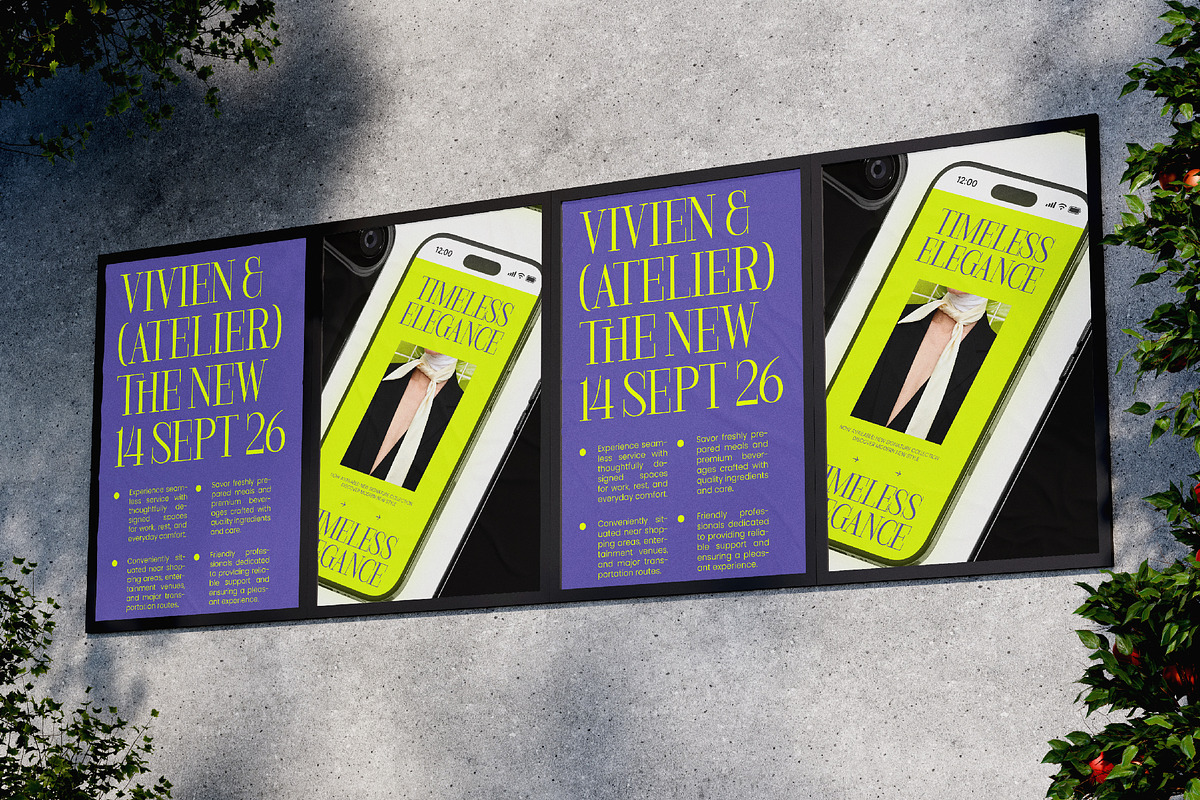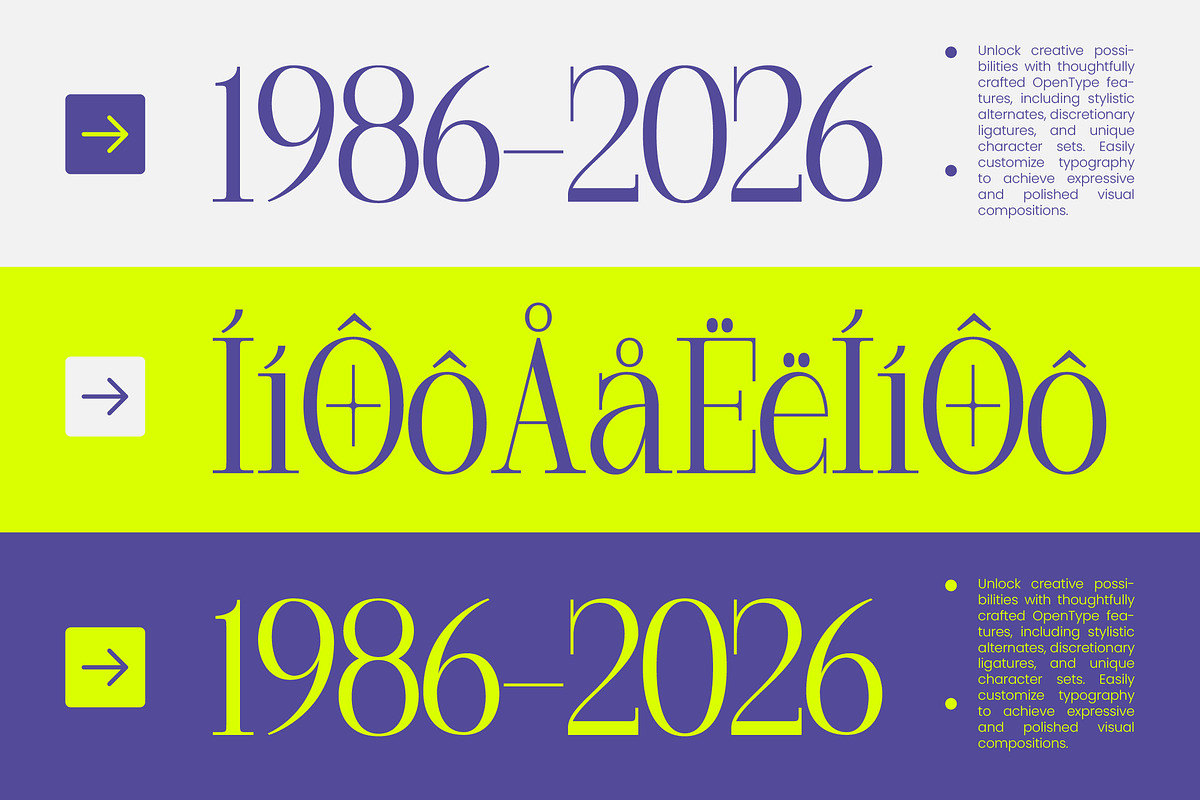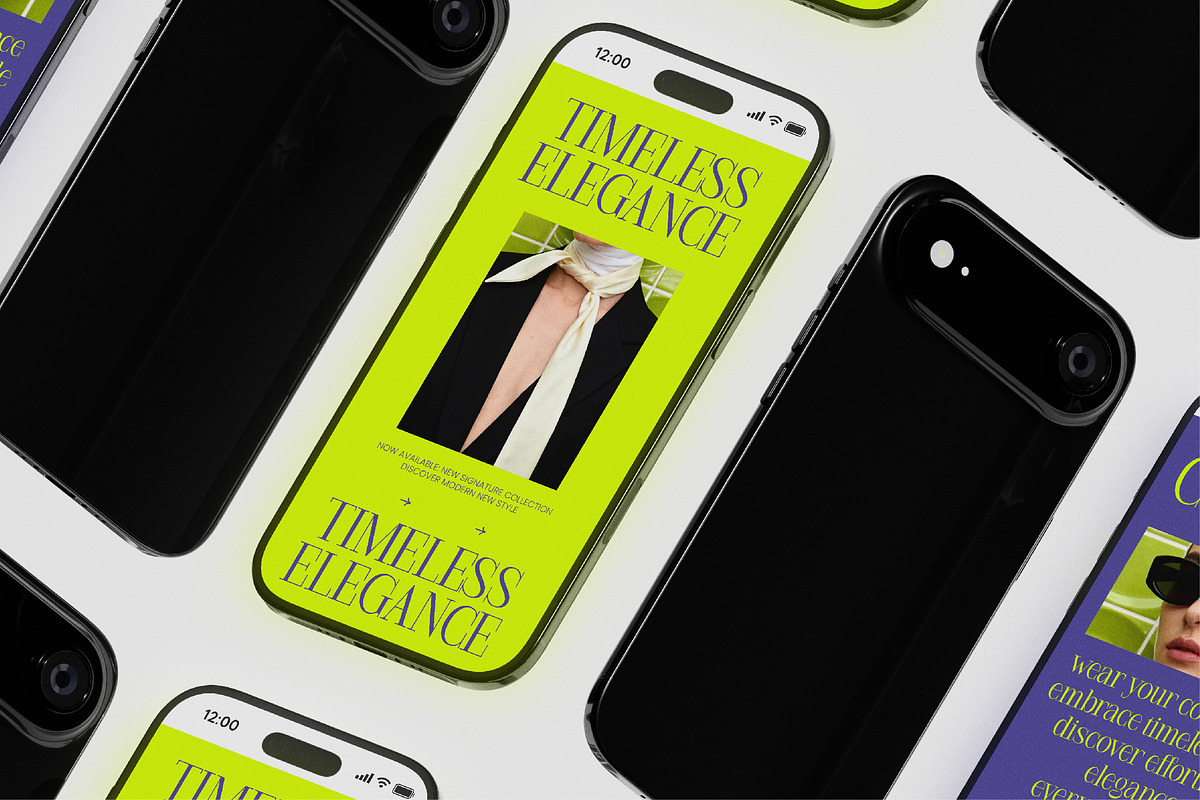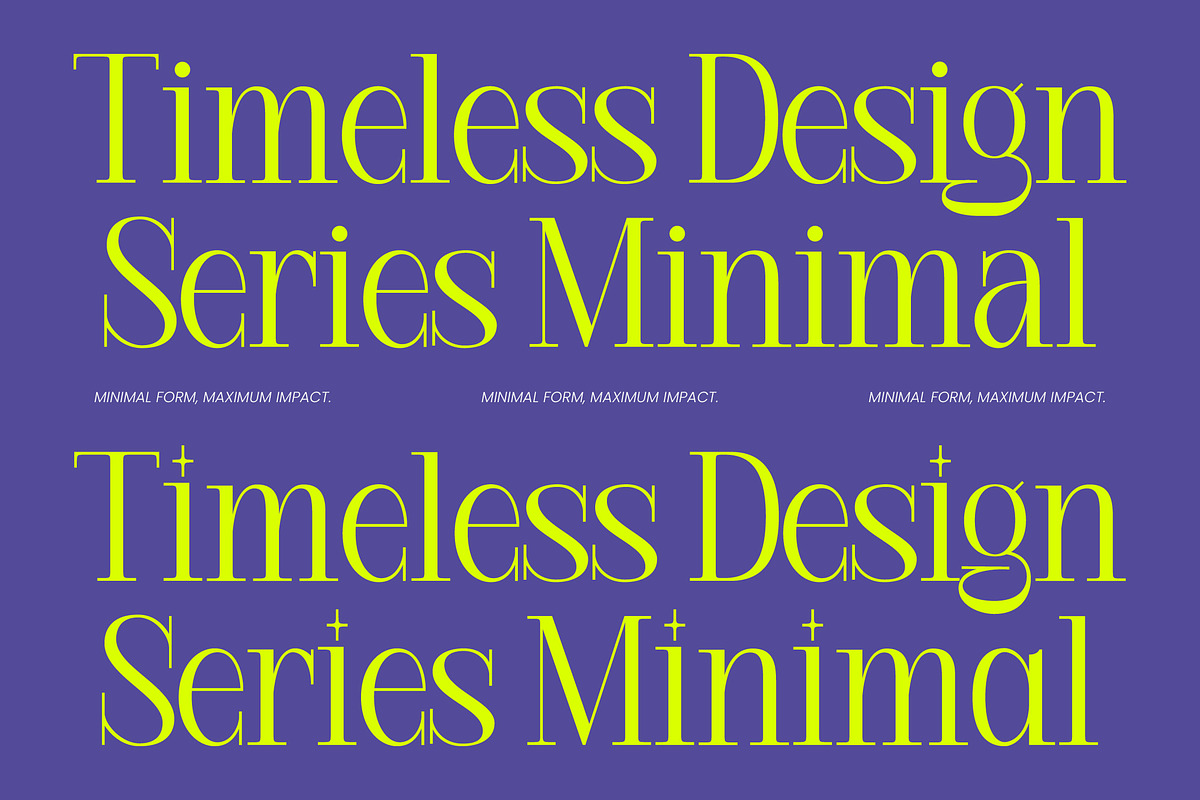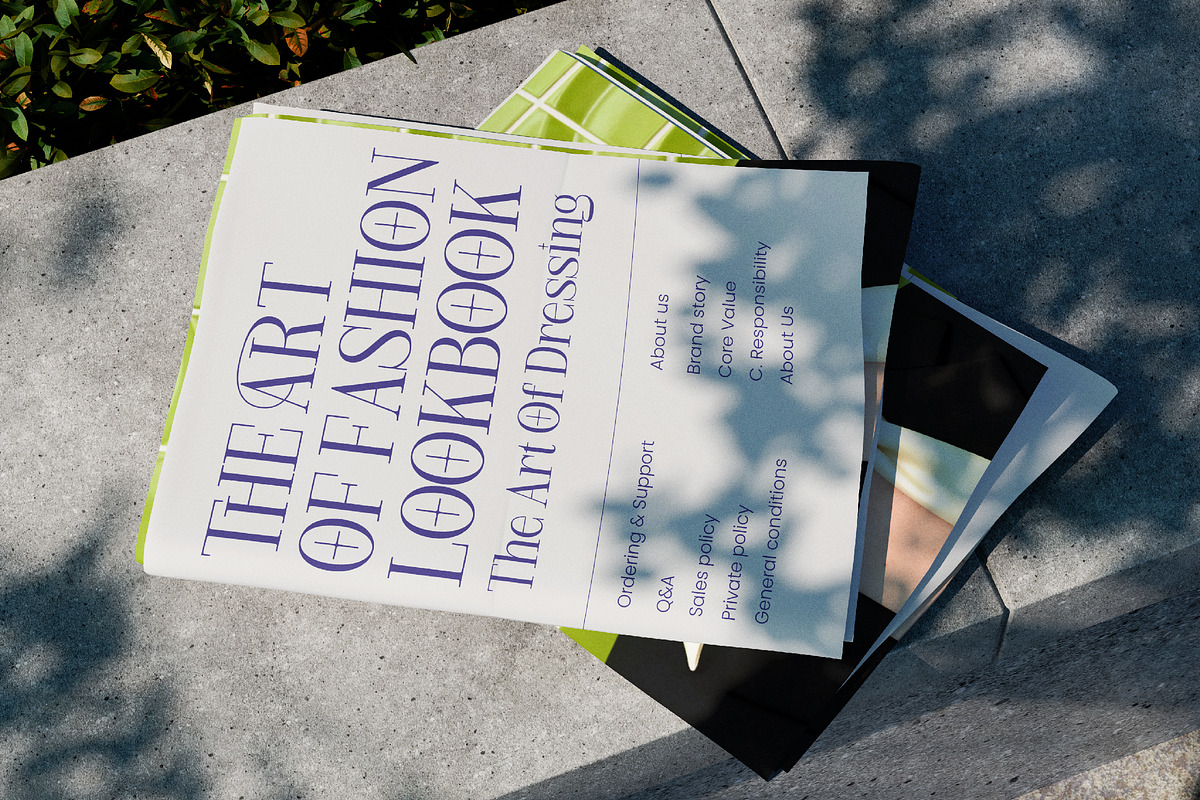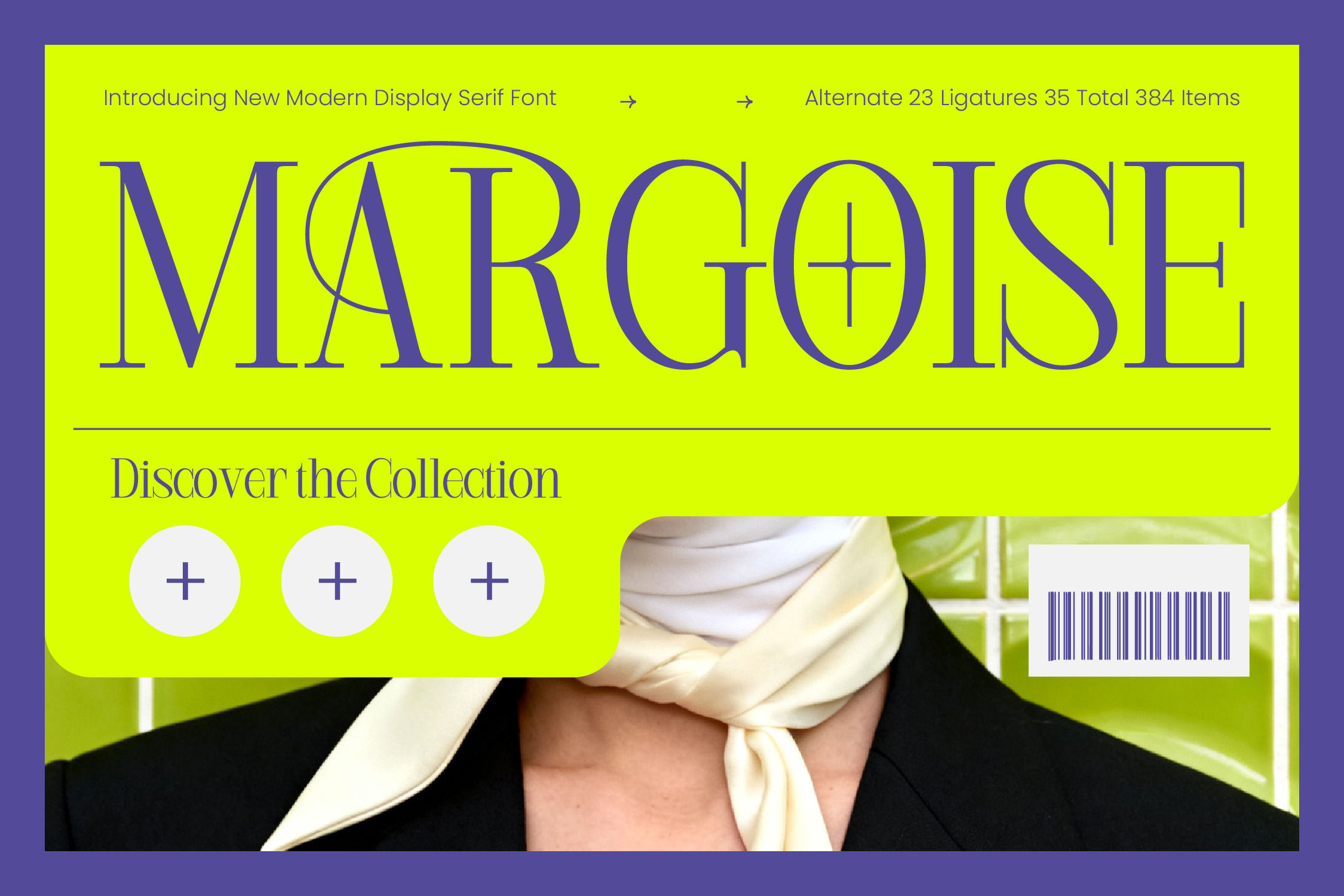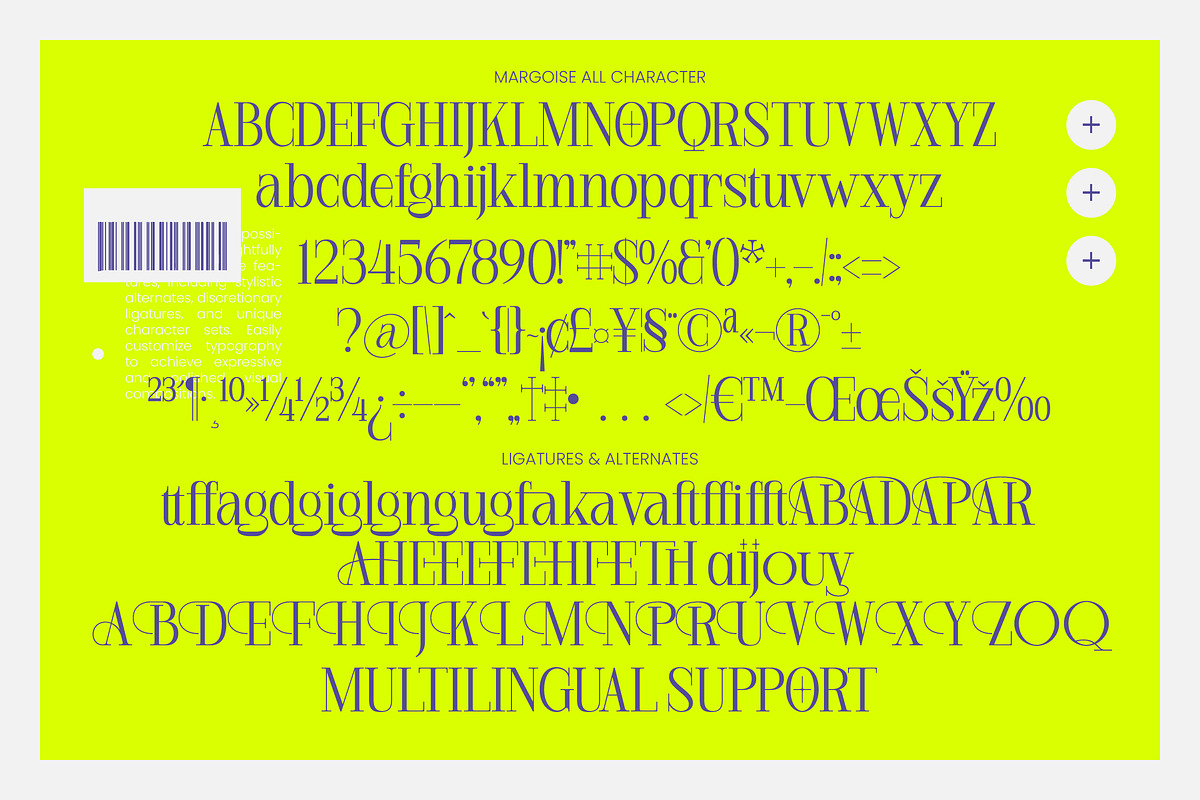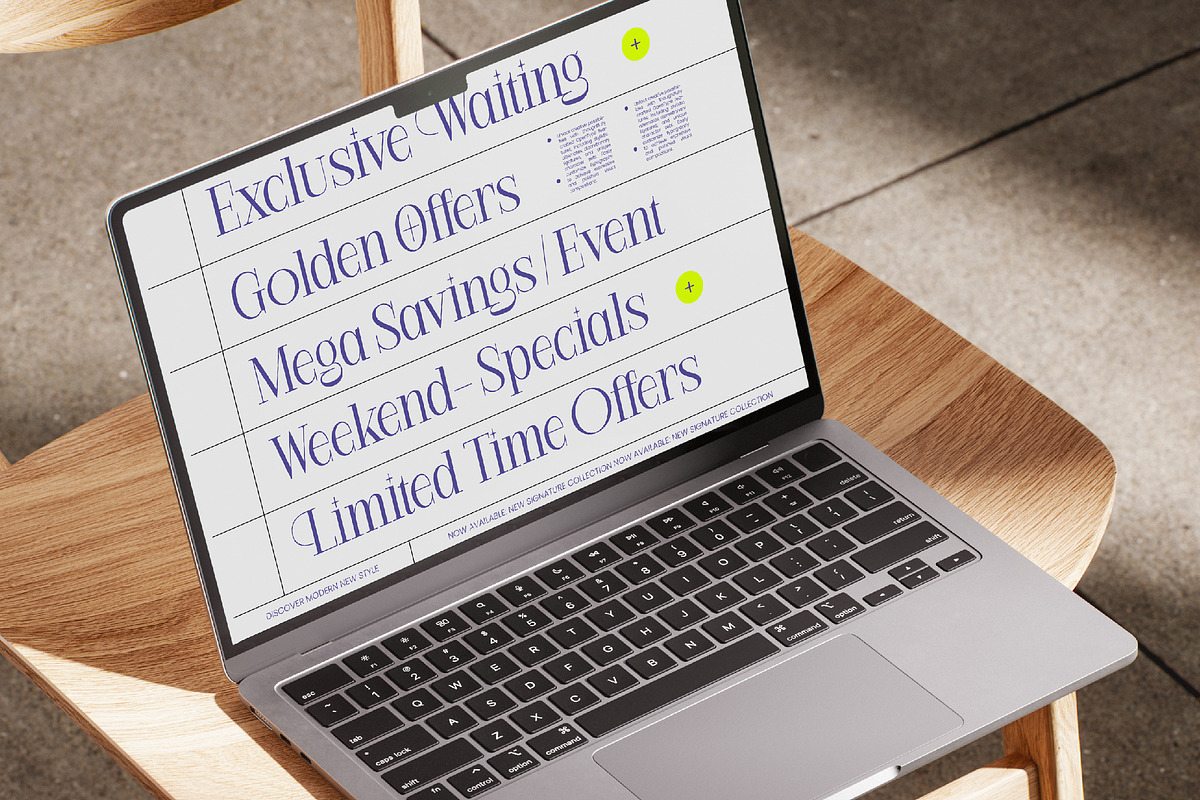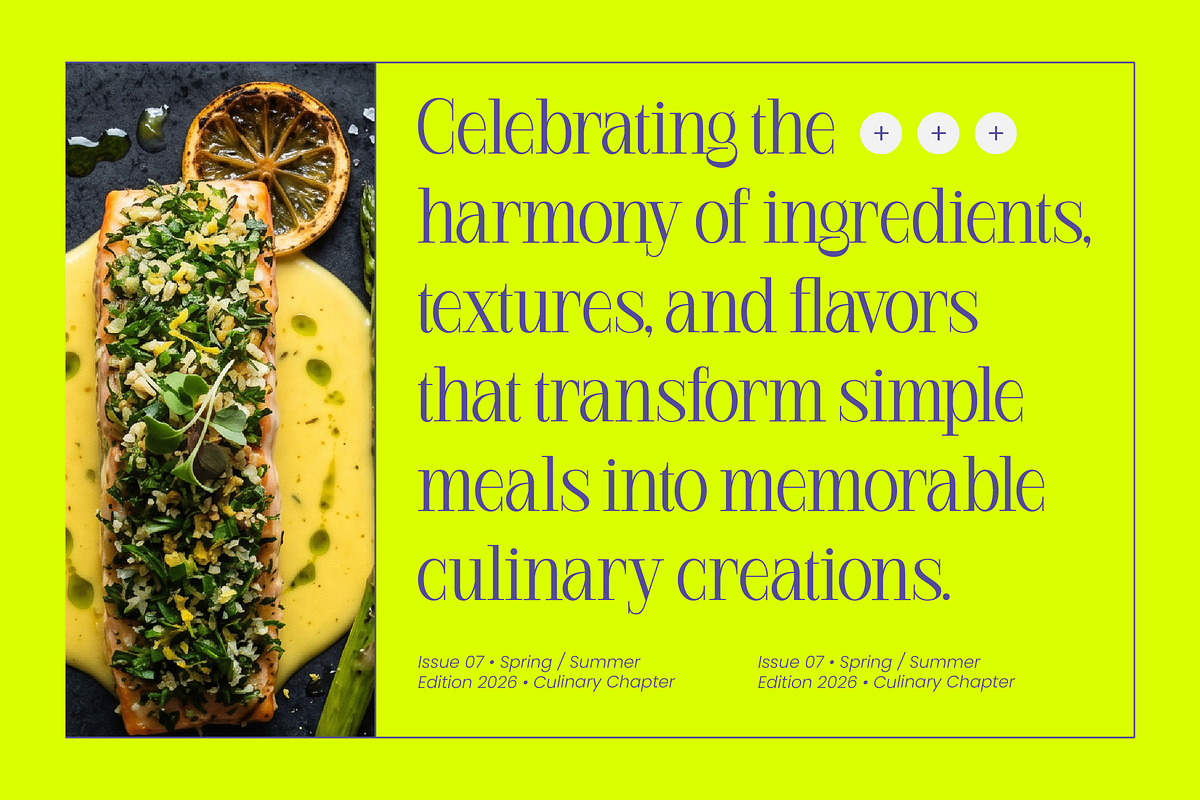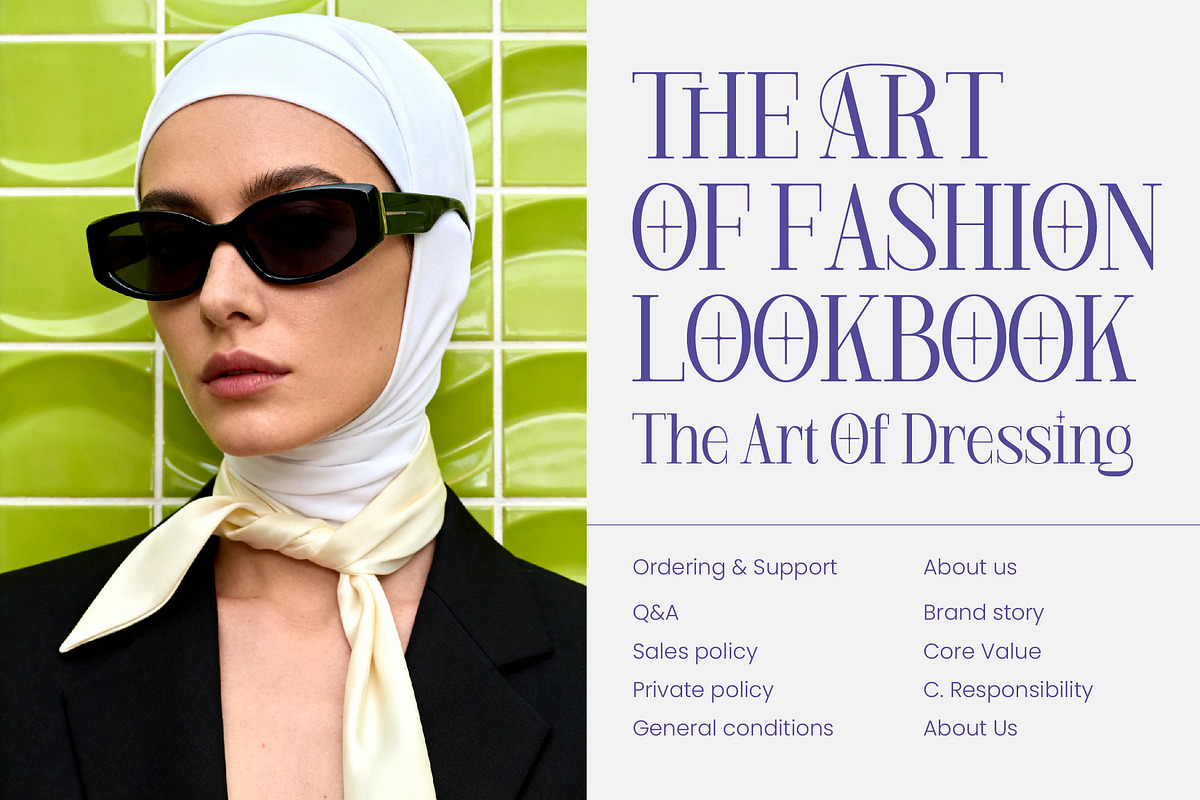
Margoise Modern Display Serif Font
Margoise - Modern Display Serif Font , Elevate your creative vision with a typeface that embodies sophisticated elegance. Margoise - Modern Display Serif Font is a masterclass in high-contrast design, blending classic serif architecture with a contemporary avant-garde edge. This premium display typeface commands attention with its razor-sharp serifs and dramatic letterforms, making it an essential tool for designers seeking to deliver a bold visual statement in any high-end environment.
Expand your brand's reach across the globe with comprehensive character support. With its extensive multilingual support, Margoise - Modern Display Serif Font adapts seamlessly across global markets, making it incredibly versatile for international projects. This robust character set ensures that your message remains consistent and impactful across various languages, providing a cohesive brand identity for multi-region campaigns and global design initiatives.
Unlock unparalleled creative potential with a rich library of specialized features. Featuring an impressive collection of 23 unique ligatures and 35 artistic alternates, Margoise - Modern Display Serif Font offers unlimited customization possibilities. The inclusion of 384 distinct glyphs allows for bespoke typography that feels curated and high-end, perfectly balancing modern legibility with artistic flair to ensure your headers and titles are truly one-of-a-kind.
Define the standard of luxury with a font specifically engineered for high-impact environments. This typeface is the perfect choice for luxury branding, high-fashion editorial design, and premium product packaging. Whether utilized for elegant logo marks, magazine mastheads, or exclusive event invitations, Margoise - Modern Display Serif Font provides the refined aesthetic necessary to attract a discerning audience. Invest in commercial sophistication and let your designs shine with this essential modern classic.